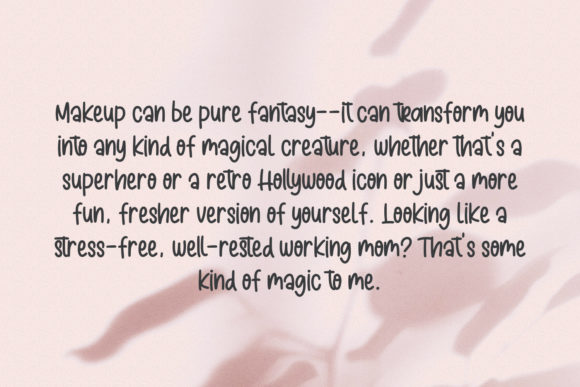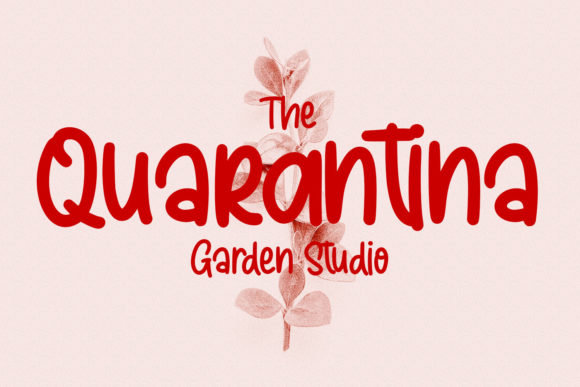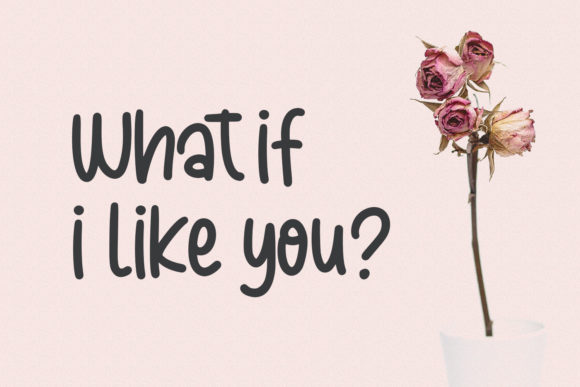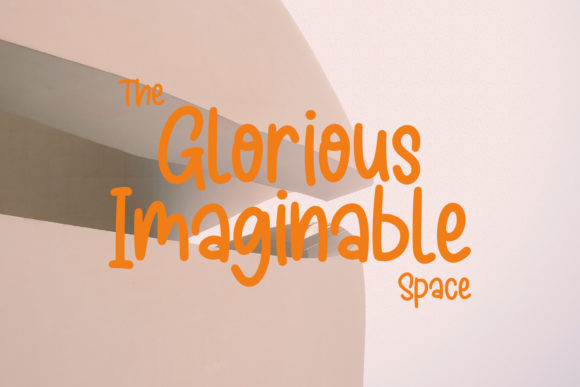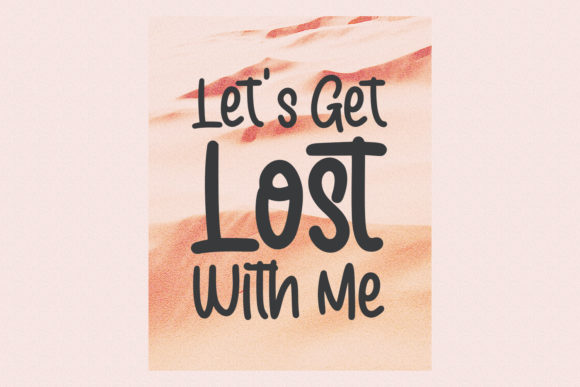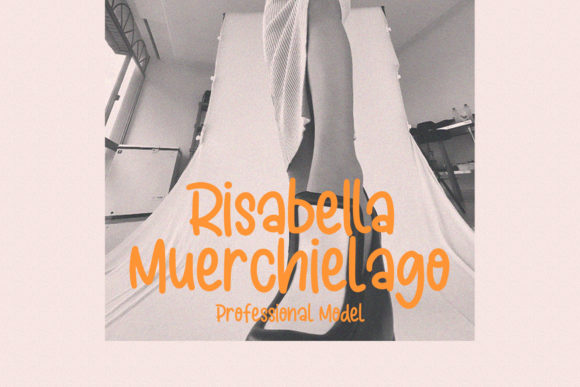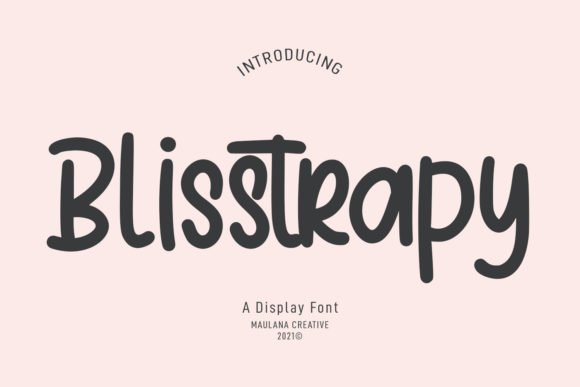
The Perfect Chalkboard Charm: Introducing Blisstrapy Font
Have you ever stumbled upon a beautifully handwritten quote on a chalkboard, and instantly felt a rush of inspiration? You’re not alone. For many creatives, it’s the authentic, imperfect look of handwritten text that sparks the most imagination. Whether it’s a heartfelt message, a motivational quote, or a playful phrase, handwritten fonts have a way of making our designs feel more personal and relatable.
That’s where Blisstrapy Font comes in – a cute and simple lettered handwritten font that’s designed specifically for chalkboard quotes and teaching materials. Its authentic look will add a touch of warmth and personality to your designs, making it perfect for a wide range of projects, from educational materials to decorative wall art. With Blisstrapy Font, you’ll be able to create designs that feel truly unique and special.
Blisstrapy Font Key Features
• Font Family: Blisstrapy
• Unique Characteristic: Blisstrapy Font features a unique blend of modern and vintage elements, making it ideal for creating a distinctive and eye-catching visual identity.
Blisstrapy Font Review
Overall, I’d say Blisstrapy Font is a decent addition to any designer’s toolkit. ✨ The font’s quirky, handwritten feel is perfect for adding a touch of personality to headings and titles.
• ✨ Unique character: Blisstrapy Font’s playful, cursive design is sure to stand out in any design.
• ✨ Versatile: It works well in both digital and print projects, making it a great choice for designers who work across multiple mediums.
• ✨ Easy to read: Despite its quirky feel, Blisstrapy Font is surprisingly legible, even at smaller font sizes.
• ⚠️ Limited font weight options: While Blisstrapy Font comes in a few different weights, it’s not as extensive as some other fonts on the market.
• ⚠️ Not ideal for body text: While Blisstrapy Font works well for headings and titles, it’s not the best choice for large blocks of body text.
Overall, I’d give Blisstrapy Font 3.5 out of 5 stars. It’s a fun, unique font that’s perfect for adding a touch of personality to your designs, but it’s not the most versatile or comprehensive font out there.
Getting the Most Out of Blisstrapy Font
For best results, use Blisstrapy Font for headings and titles, as it is designed to be eye-catching and attention-grabbing.
Experiment with different font sizes and colors to create a unique look.
Combine Blisstrapy Font with other fonts for a visually appealing contrast.
Blisstrapy Font is ideal for:
Headings and titles
Brand logos and identities
Marketing materials and advertising
Web design and development